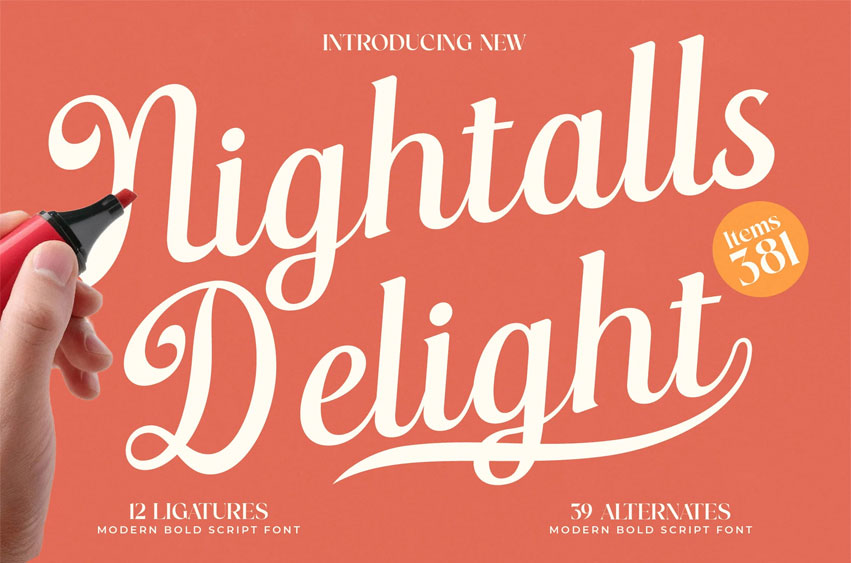
Nightalls Delight Font
Nightalls Delight Font is a modern bold script font with smooth flowing strokes, elegant curves, and a confident handwritten energy that feels polished yet naturally expressive. Designed for branding, product packaging, boutique logos, editorial headlines, social media graphics, and creative advertising, this typeface delivers a warm handwritten charm with professional precision.
With 381 glyphs, 12 ligatures, and 59 alternates, it offers flexible stylistic options—making every composition look intentional, stylish, and visually engaging.